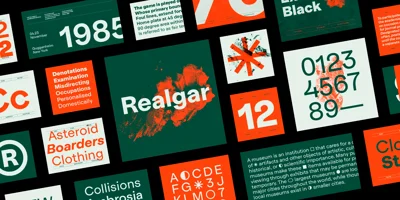
Realgar Font
Realgar Font is ideal for mineral science publications, geological survey materials, crystal healing center branding, gemstone jewelry marketing, earth science educational content, mining industry communications, natural history museum exhibits, geological consulting firms, rock hound club materials, and sophisticated design projects that celebrate the beauty and mystery of crystalline formations and earth's mineral treasures.
What makes Realgar Font exciting is its crystalline ability to capture the geometric precision and natural beauty of mineral formations through its structured letterforms that seem crafted by the same geological forces that create precious gems and rare crystals. This sophisticated typeface embodies the spirit of earth science with its angular character that speaks of crystal lattices, volcanic formations, and the kind of patient geological processes that transform raw elements into stunning mineral specimens over millions of years.
The Realgar Font family includes regular, light, and bold weights designed to maintain its crystalline authenticity across various scientific applications. Special geological symbols, crystal-inspired ornaments, and mineral-themed decorative elements complement the main typeface, while precise spacing mirrors the ordered structure of crystal formations for authentic scientific design applications requiring both beauty and accuracy.
Realgar Font offers earth science professionals access to typography that honors geological heritage. Its precisely crafted letterforms maintain exceptional legibility while projecting an image of scientific accuracy and natural wonder. The font's versatile nature works brilliantly for both academic geological research and commercial mineral industry applications.
Crystallize your designs with Realgar Font and create communications that celebrate the stunning beauty of earth's mineral kingdom while inspiring appreciation for geological science and natural crystal formations.